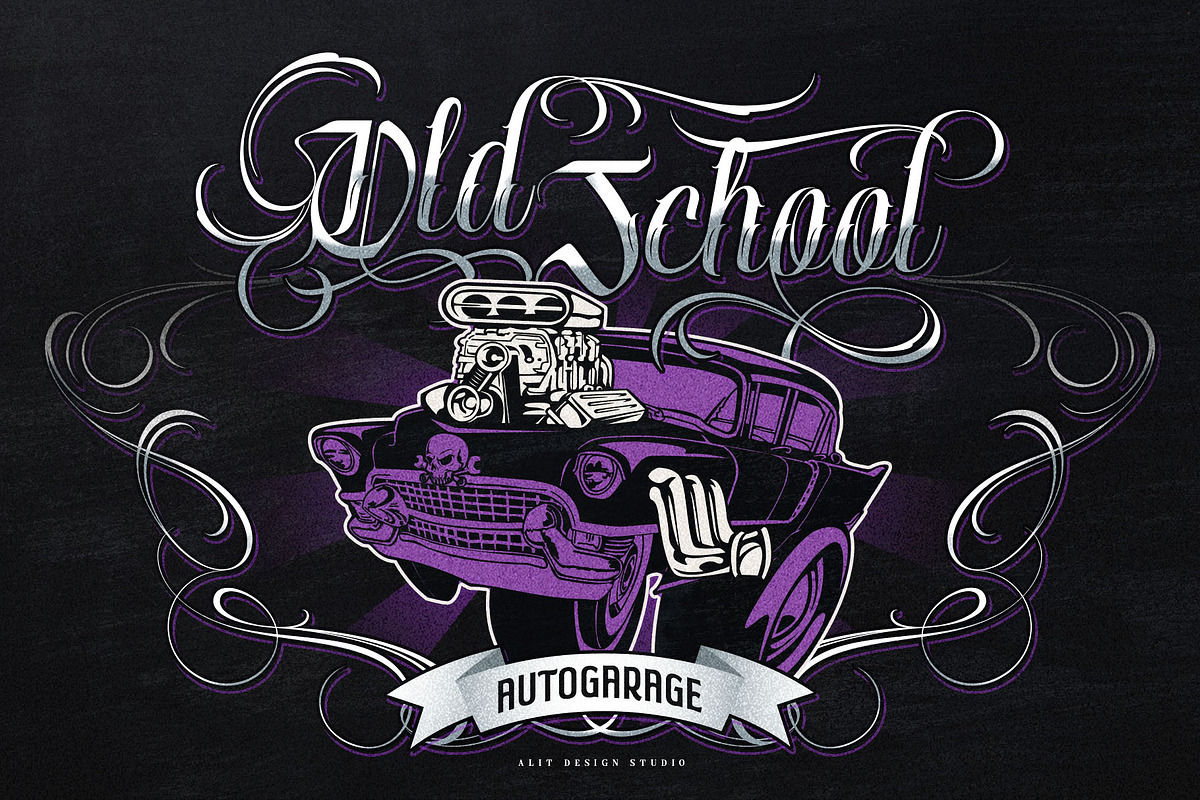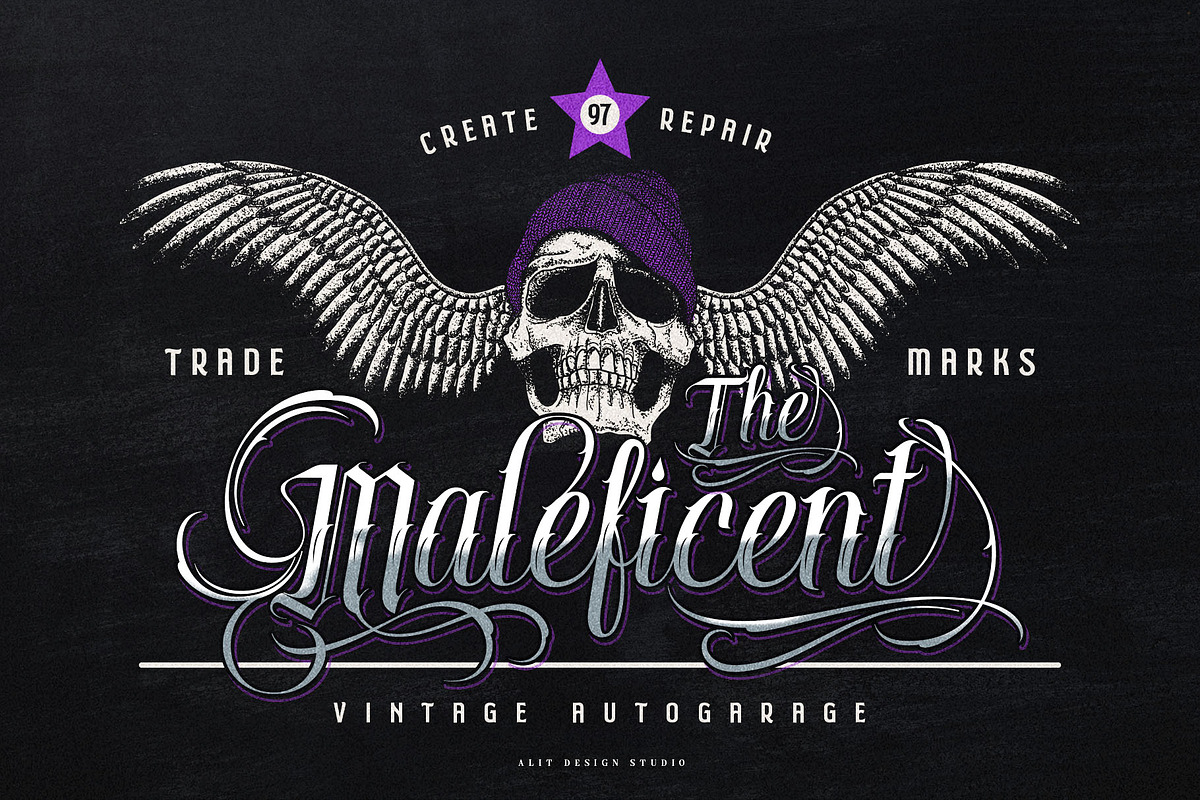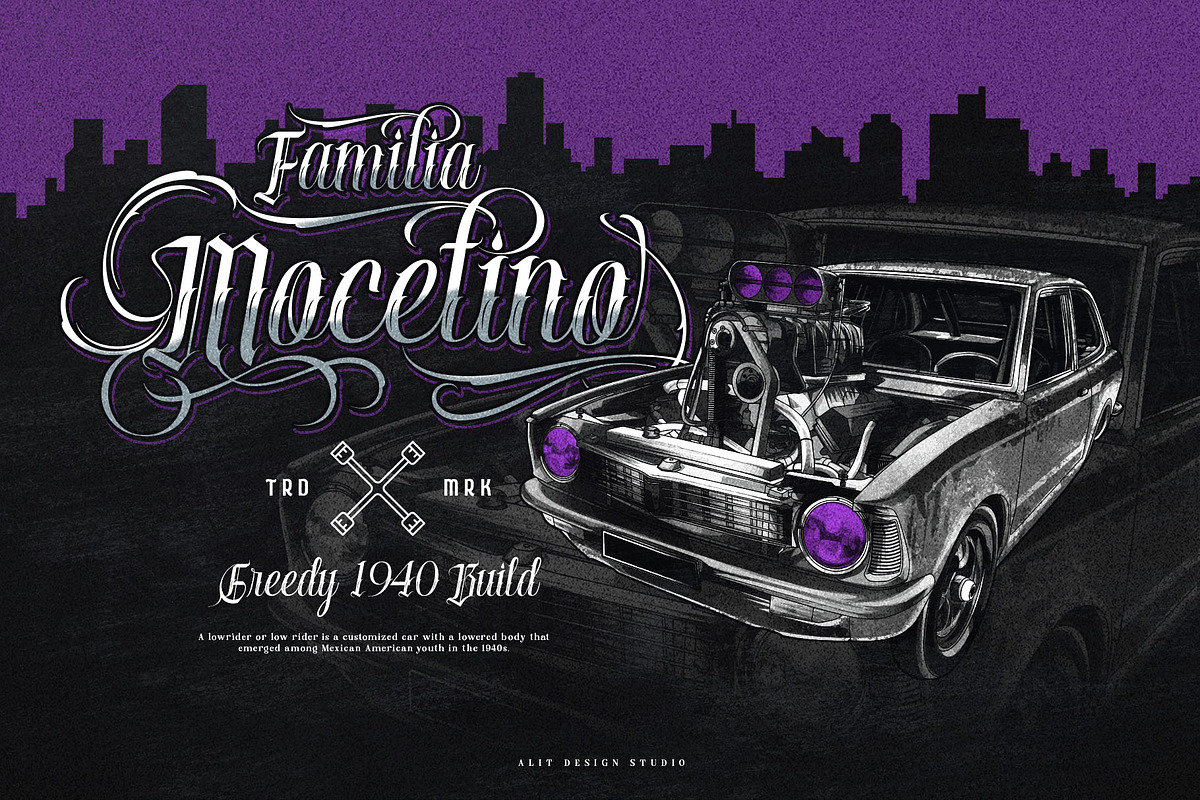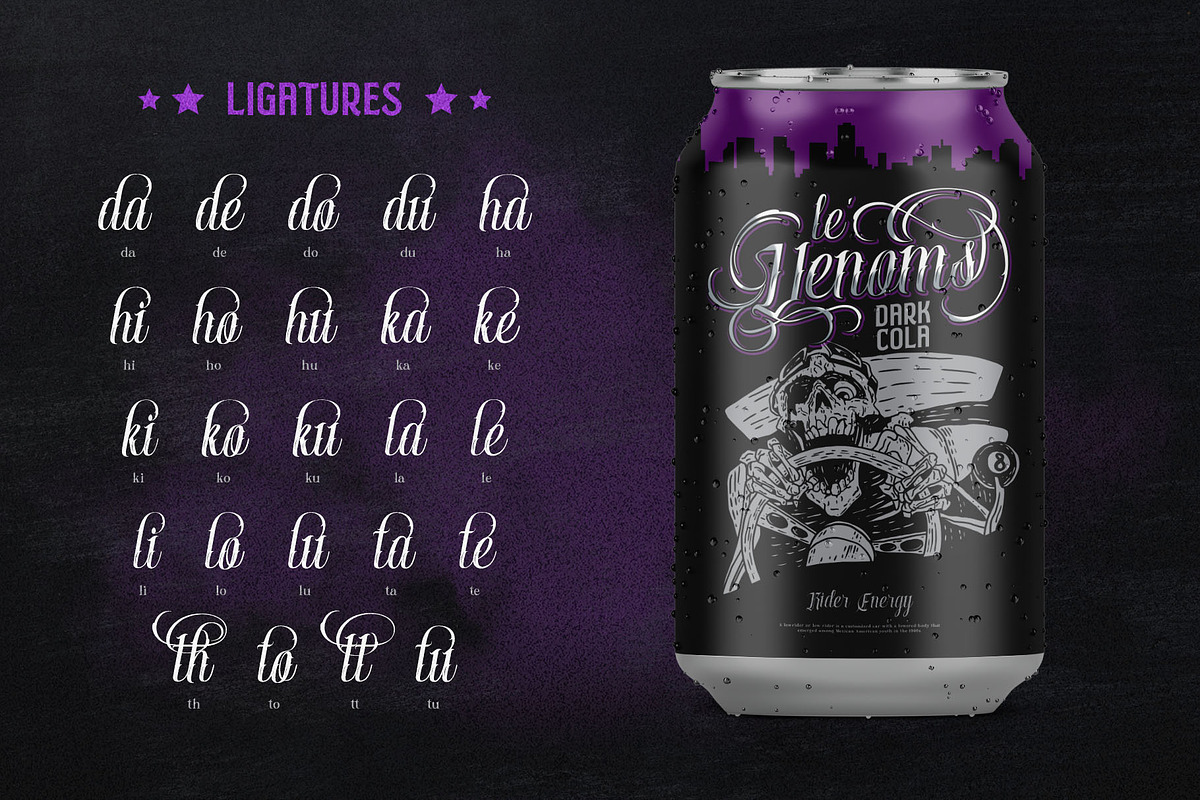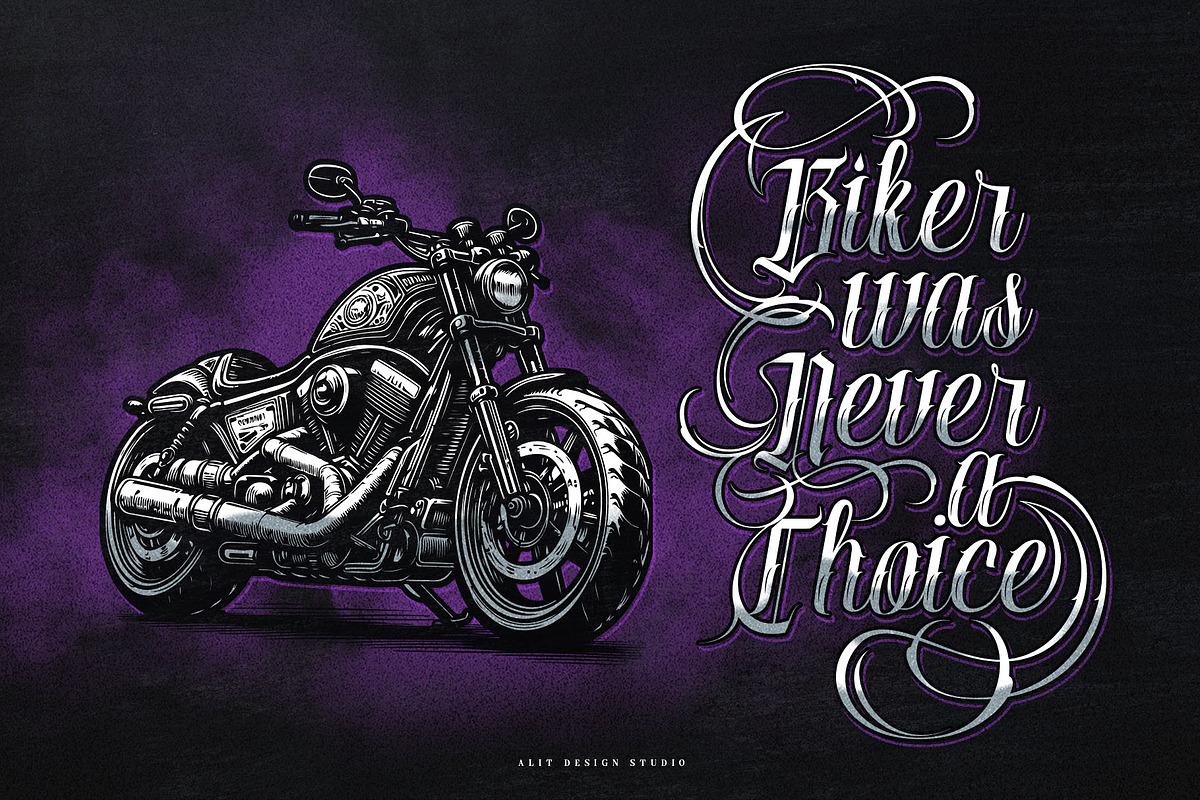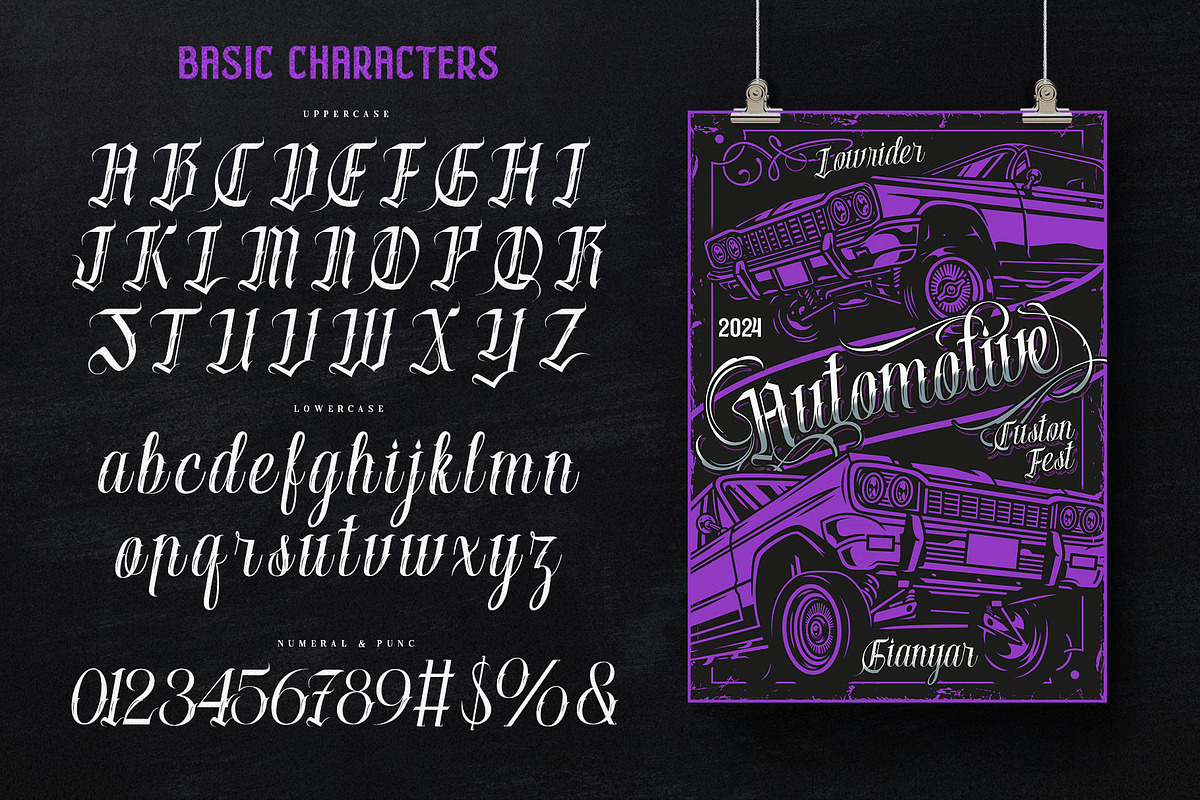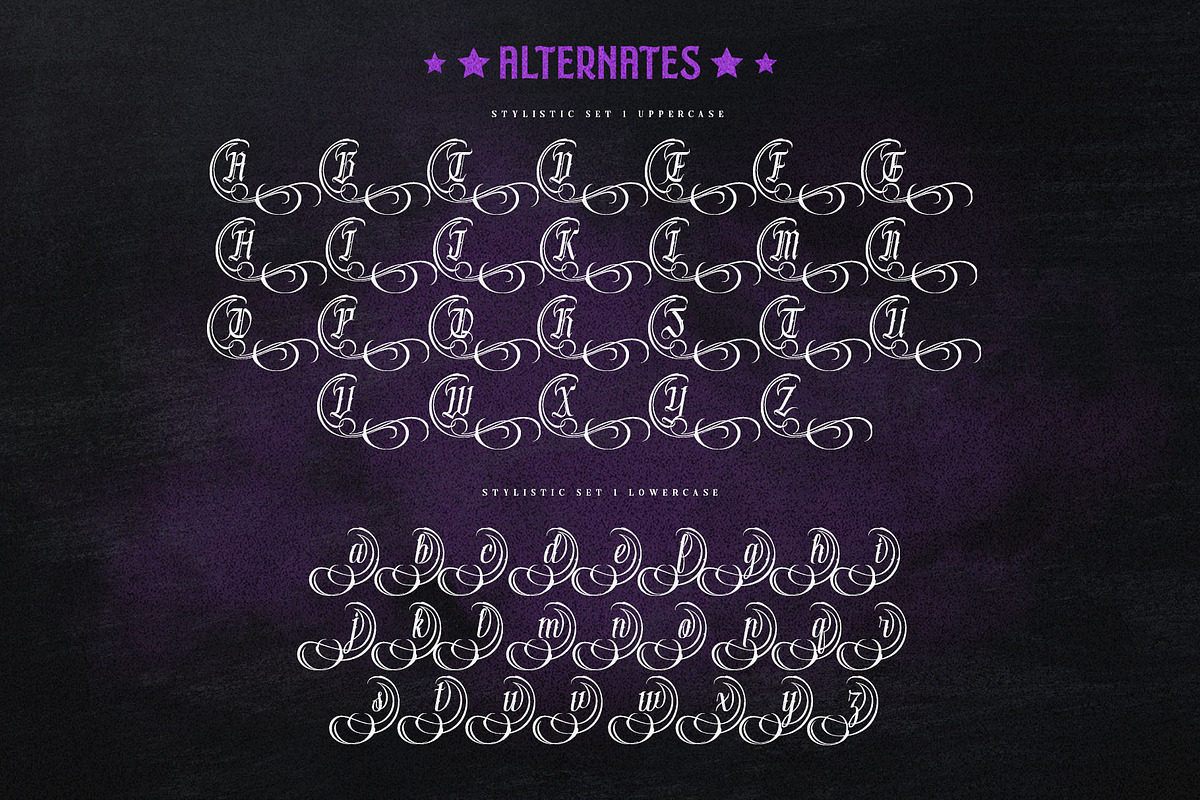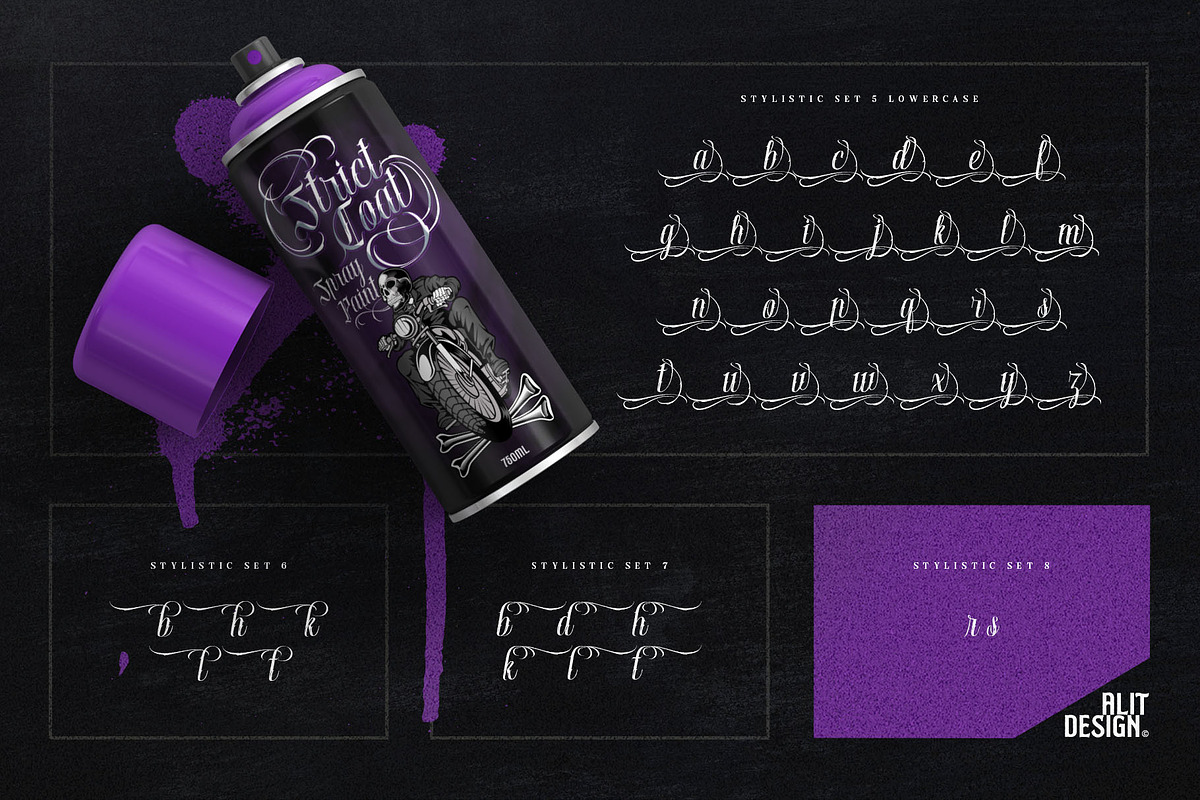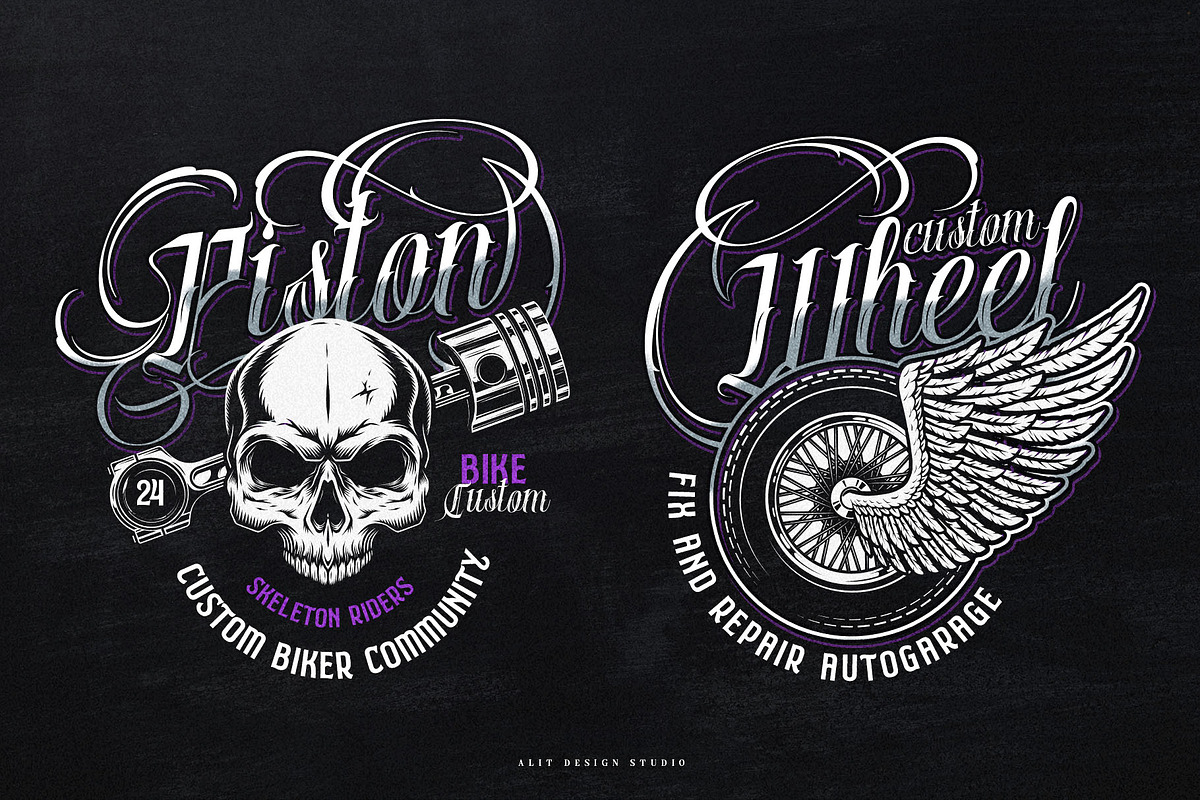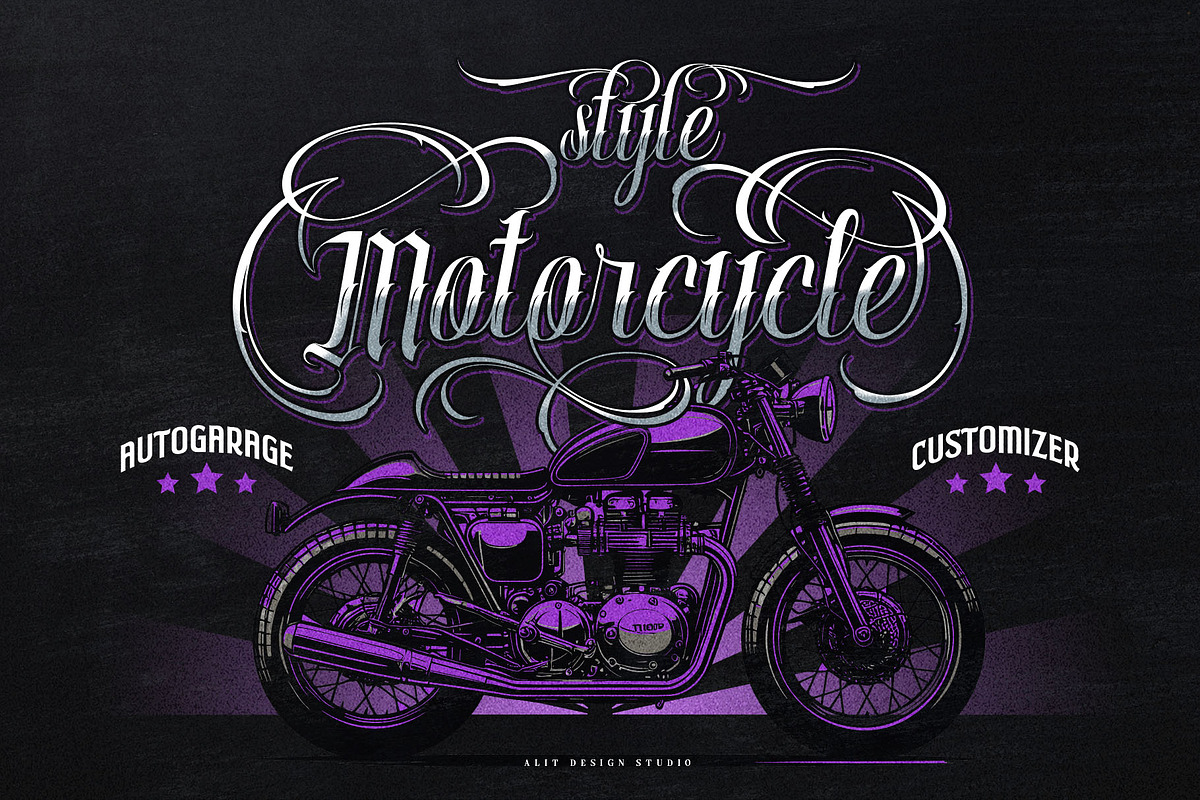
Mexicala Font
Mexicala: The Ultimate Mexican Gangster Tool Tattoo Script
Step into a world where tradition meets rebellion with Mexicala, a meticulously crafted font that embodies the spirit of Mexican gangster culture and the timeless art of tattoo scripts. Designed for those who appreciate the bold and intricate, Mexicala is your go-to font for projects that demand authenticity and edge.
- Authentic Design: Mexicala draws inspiration from traditional Mexican tattoo scripts, bringing a genuine gangster aesthetic to your text.
- Intricate Details: Each character is carefully crafted with detailed strokes and flourishes, reflecting the precision of classic tattoo artistry.
- Versatile Use: Perfect for tattoos, posters, apparel, logos, and more, Mexicala adds a unique flair to any design project.
- Bold Presence: The font’s strong and striking lines ensure your message stands out, making a lasting impression.
- Cultural Tribute: Celebrate the rich heritage of Mexican gangster culture with a font that pays homage to its roots.
Ideal For:
- Tattoo Artists: Create designs that resonate with authenticity and cultural depth.
- Graphic Designers: Add a distinctive touch to your creative projects, from posters to branding materials.
- Apparel Brands: Develop clothing lines that capture the essence of street style and rebellion.
- Event Planners: Design eye-catching invitations and promotional materials for themed events and parties.
Usage Tips:
- Pairing: Mexicala pairs beautifully with sans-serif fonts for a balanced and dynamic look.
- Color Schemes: Use bold and contrasting colors to highlight the intricate details of each character.
- Spacing: Adjust the letter spacing to suit your design needs, whether you want a compact and intense look or a more spaced-out, relaxed vibe.
- Characters: Full set of uppercase and lowercase letters, numerals, punctuation, and special characters.
Unleash the power of Mexicala in your designs and make a bold statement with every word. Whether you're creating for print, digital, or ink, Mexicala delivers unmatched style and authenticity. Embrace the essence of Mexican gangster culture with a font that's as fierce and intricate as the art that inspired it.